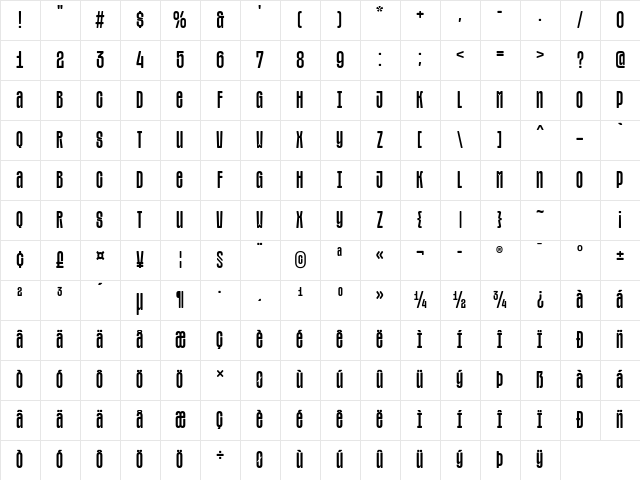
Complete SFT Sushka TRIAL Flat Medium glyph index. Displaying only characters natively supported by SFT Sushka TRIAL Flat Medium font.
SFT Sushka TRIAL Flat is a composed and adaptable typeface that performs quietly and consistently across a wide range of design contexts.